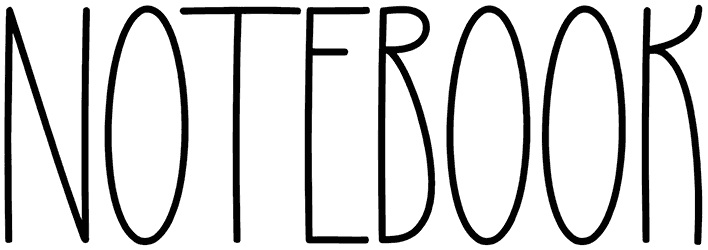
Notebook Font
What your design needs to become friendly and memorable is a casual handwritten font that can add a sweet vibe to your project. This scrapbook font has delicate and modest characters, but consider that it doesn’t support lowercase letters. Use Notebook font for your novel book cover, school poster, or the like, and amaze your followers.